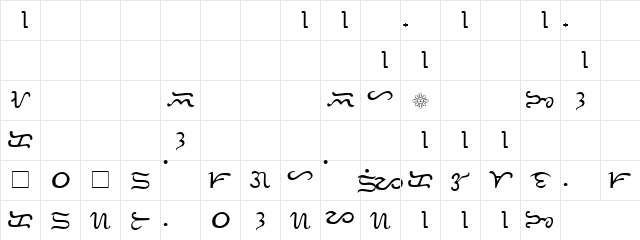
Bisaya 1880 Regular
Design Context for Bisaya 1880 Typeface
Bisaya 1880 is a composed and adaptable typeface that performs quietly and consistently across a wide range of design contexts.